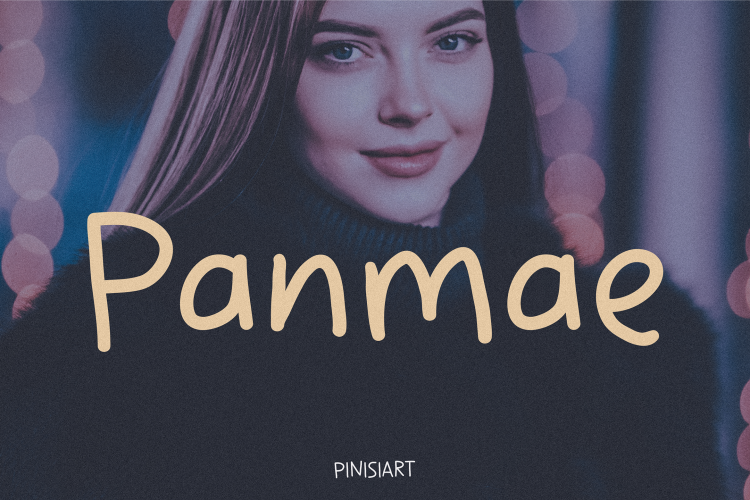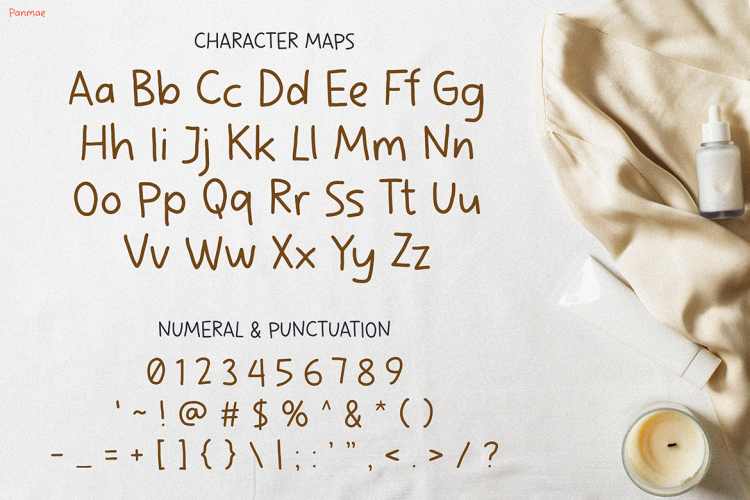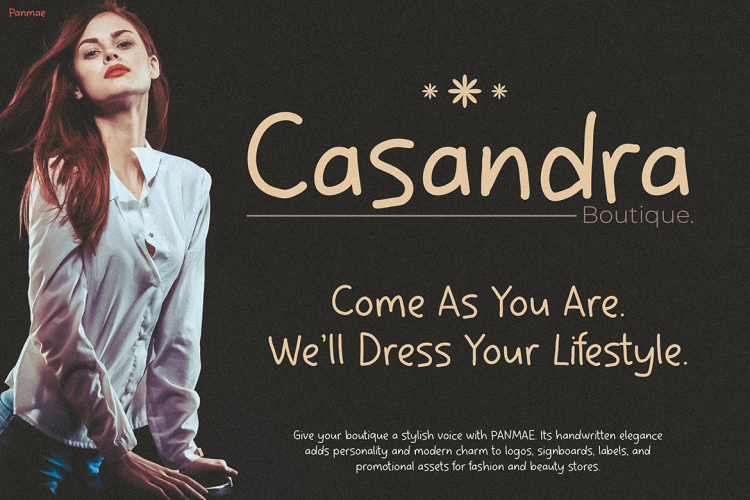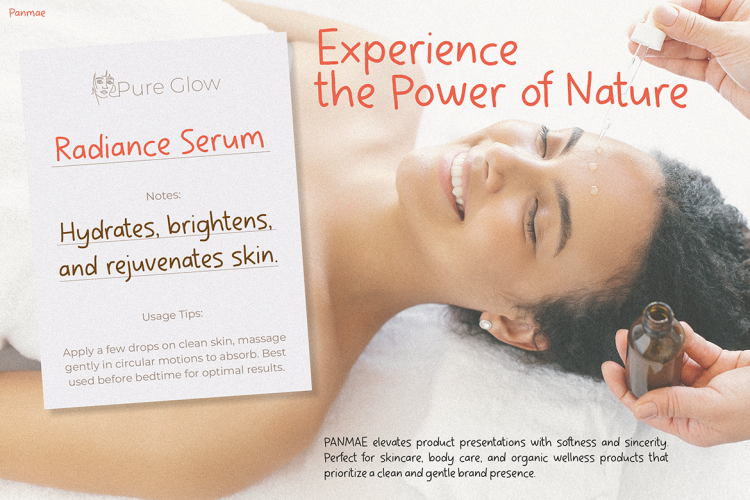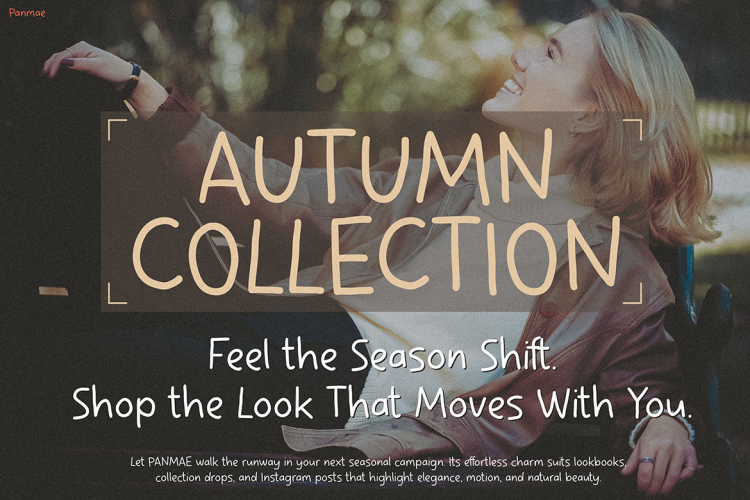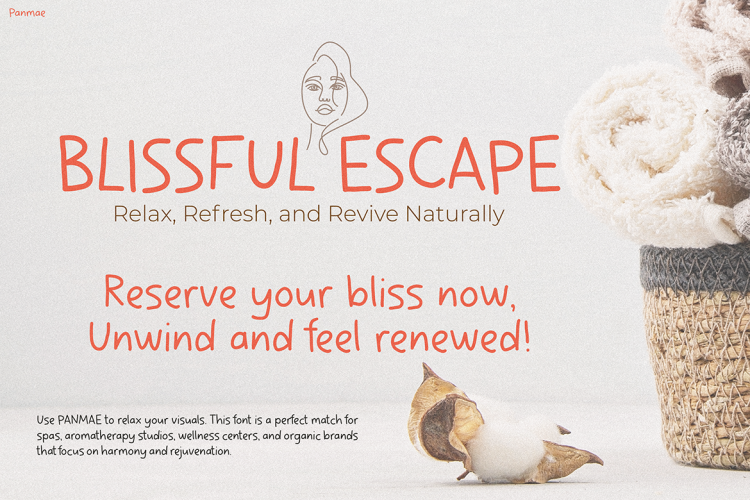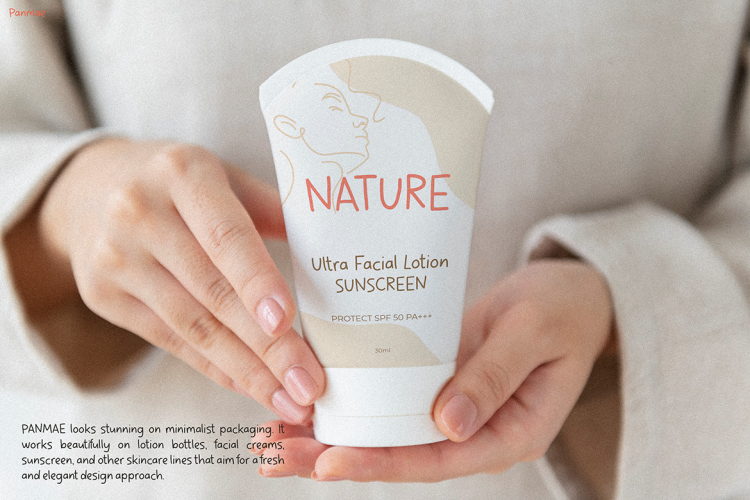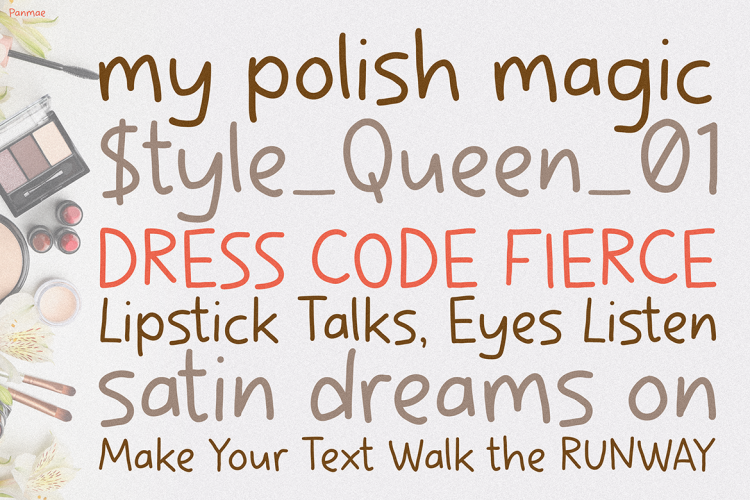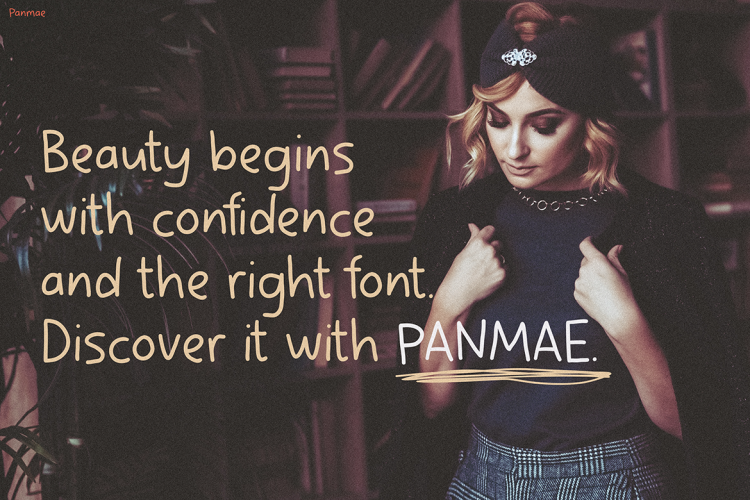
Instagram Font Panmae is a charming and modern handwritten typeface that effortlessly brings warmth and elegance to any visual. With its soft, rounded strokes and organic flow, Panmae evokes a natural, human touch that makes digital designs feel more intimate and approachable. As a result, it becomes an ideal choice for creatives who wish to build genuine emotional connections with their audience.
Not only does it offer visual beauty, but Panmae also blends effortlessly with various design themes. Whether youโre creating minimalist content or adding flair to promotional material, this font adapts gracefully. Additionally, its playful curves and gentle weight provide excellent readability, which is essential for social media and e-commerce visuals. Thanks to its harmonious balance of friendliness and professionalism, Panmae stands out in a crowded visual landscape.Although the message is bold and urgent, the Panmae font maintains a welcoming and stylish personality, helping brands sell with sincerity.
Instagram Font Panmae Perfect For:
Beauty & Skincare Brands โ Because of its ability to convey trust, softness, and purity.
Lifestyle Influencers โ Who want to maintain a consistent and visually appealing Instagram feed.
E-commerce Stores โ Especially those focusing on wellness, fashion, or eco-friendly products.
Content Creators & Digital Marketers โ Who aim to craft messages that feel both friendly and professional.
Template Designers for Social Media โ Since they need fonts that are both functional and emotionally resonant.
Clearly, Panmae offers flexibility that not many fonts can match. Regardless of your niche, it gives your visuals a fresh yet authentic voice.
In conclusion, if youโre looking to enhance your brand with a voice thatโs modern, friendly, and elegant, Instagram Font Panmae is the answer. Not only does it elevate your design game, but it also helps you connect more deeply with your audience. Moreover, its readability and softness make it perfect for both promotional and organic content. Donโt miss the chance to stand out โ add Panmae to your design toolkit and watch your visuals come alive with sincerity and style.